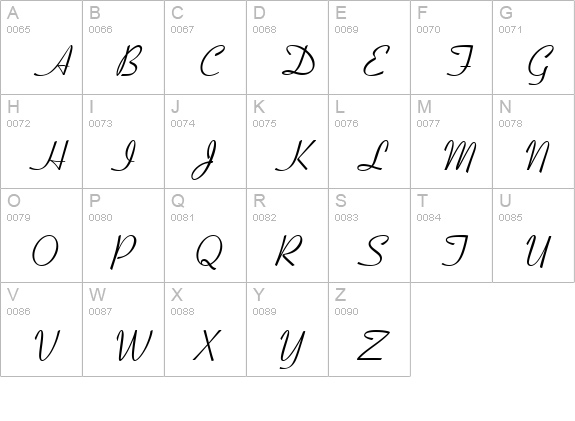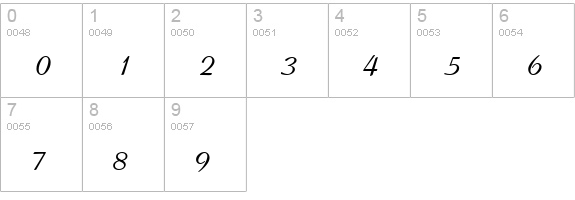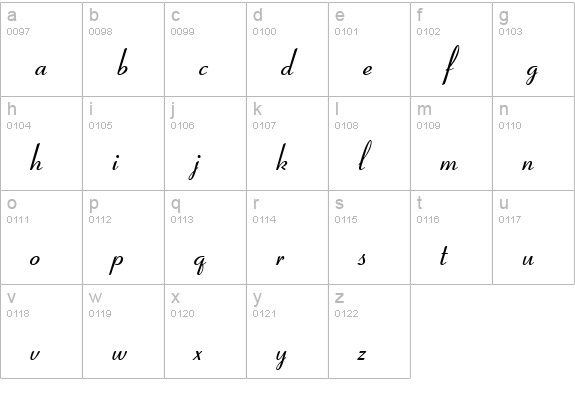
CoronetI Font Details
CoronetI font is a classic and elegant typeface that exudes sophistication and charm. With its graceful curves and timeless appeal, it is perfect for adding a touch of refinement to any design project. The font's unique style and versatility make it a popular choice for a wide range of applications, from branding and packaging to invitations and signage. What makes CoronetI font even more appealing is that it is available for free download at FontsMarket.com. This means that you can easily access this beautiful font and use it in your projects without any cost. Whether you're a graphic designer, a business owner, or a creative individual looking to elevate your work, CoronetI font is a fantastic choice that won't break the bank. Download it today and add a touch of elegance to your designs!